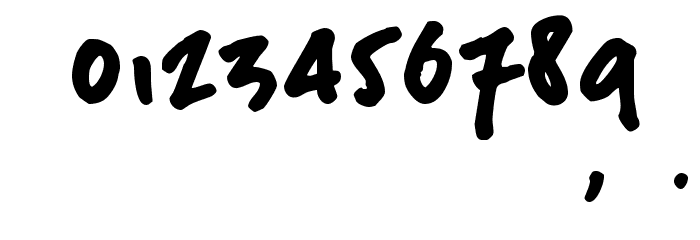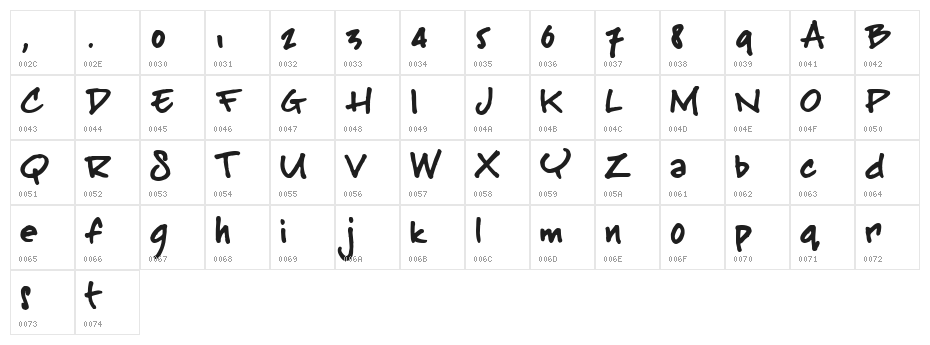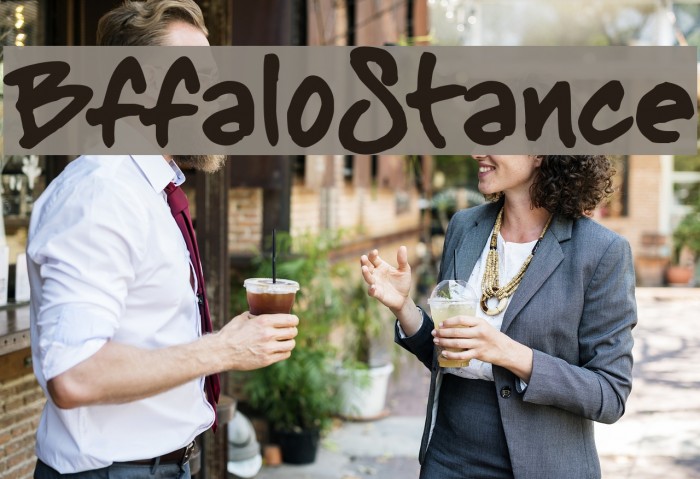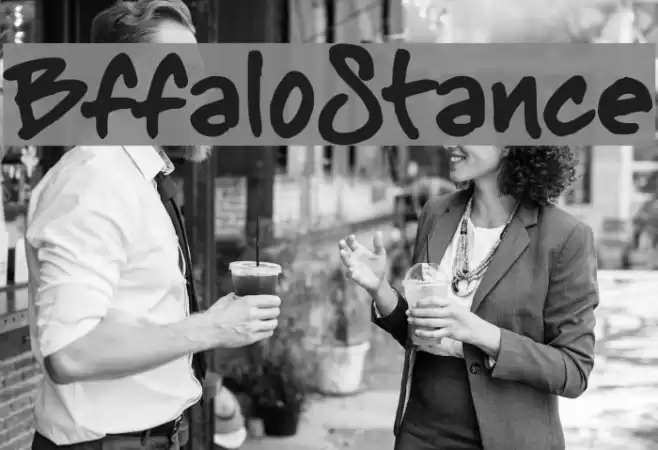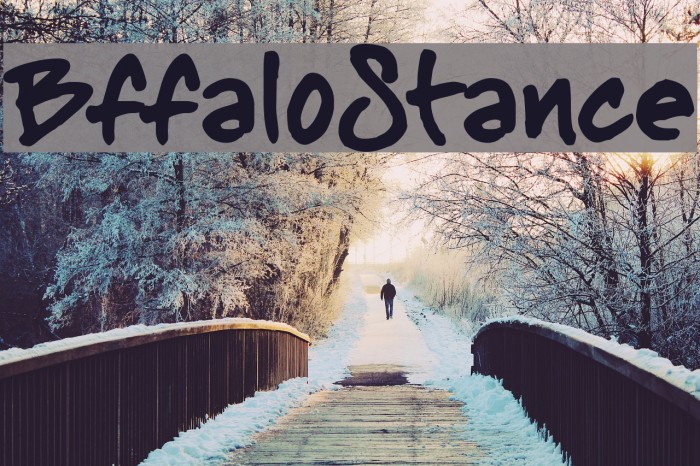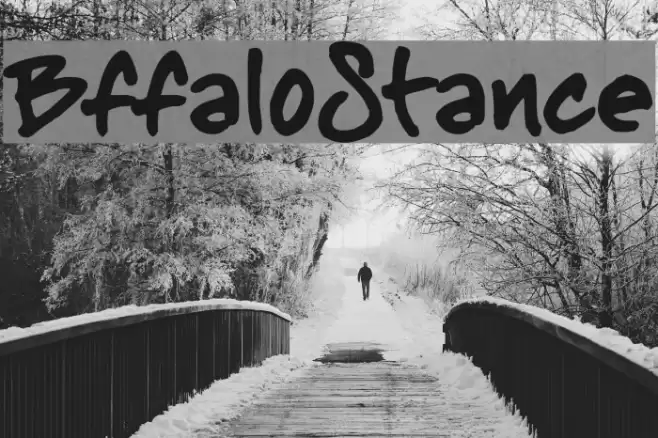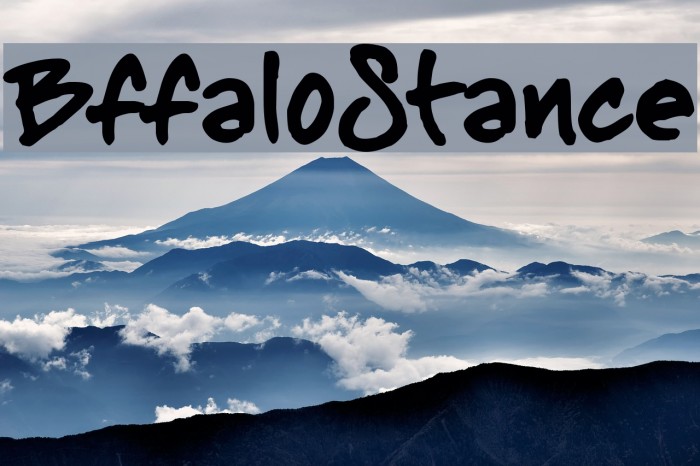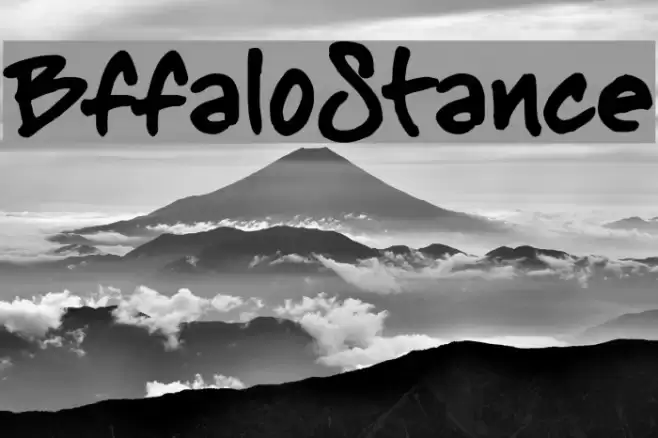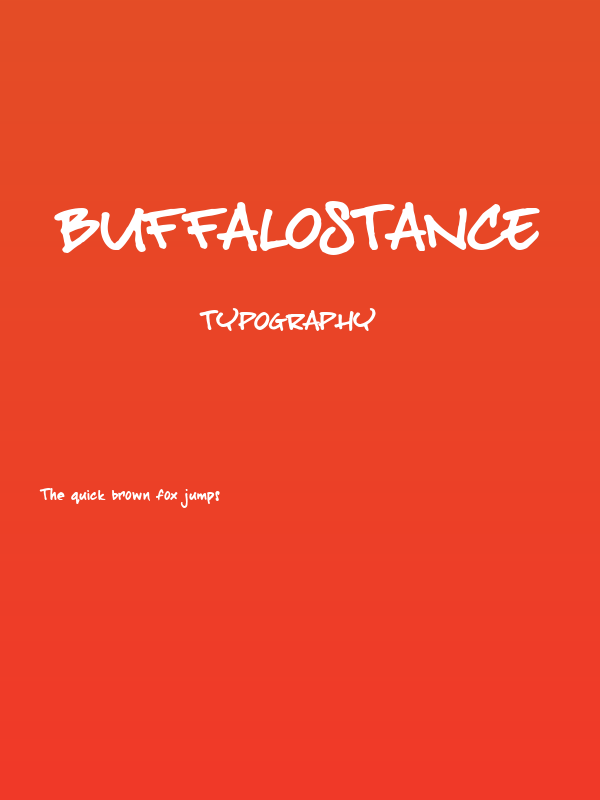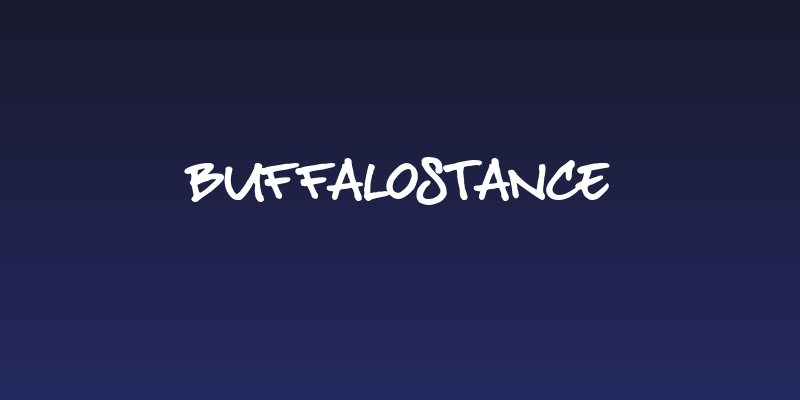
BuffaloStance Font
BuffaloStance Description
This font exudes a playful and energetic vibe, characterized by its bold, handwritten style. The letters are slightly slanted, giving a casual and informal appearance. The strokes are thick and varied, adding a dynamic feel to the text. The uppercase and lowercase letters maintain a consistent style, with rounded edges and a slightly uneven baseline, enhancing its hand-drawn charm. The numerals and special characters follow the same aesthetic, ensuring uniformity across all characters. This font is perfect for projects that require a personal touch or a lively, informal tone.
| Proposed Projects | Ideal for greeting cards, posters, children's books, and any project needing a personal, lively touch. |